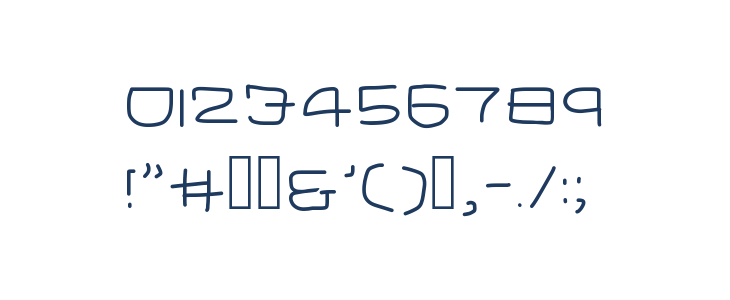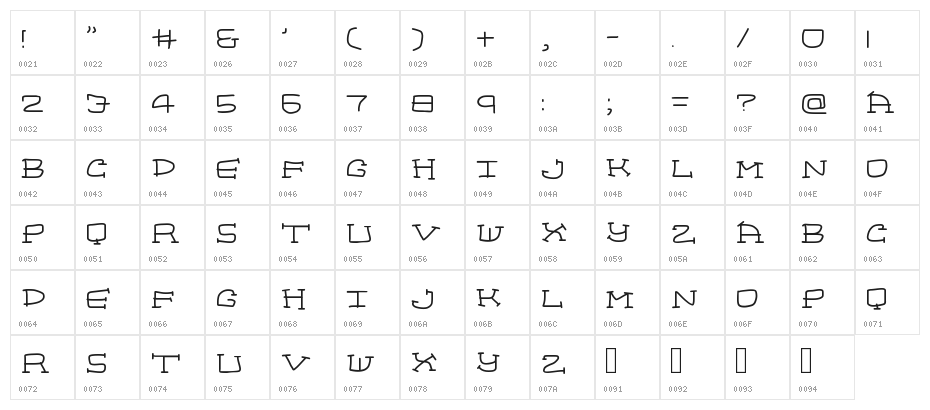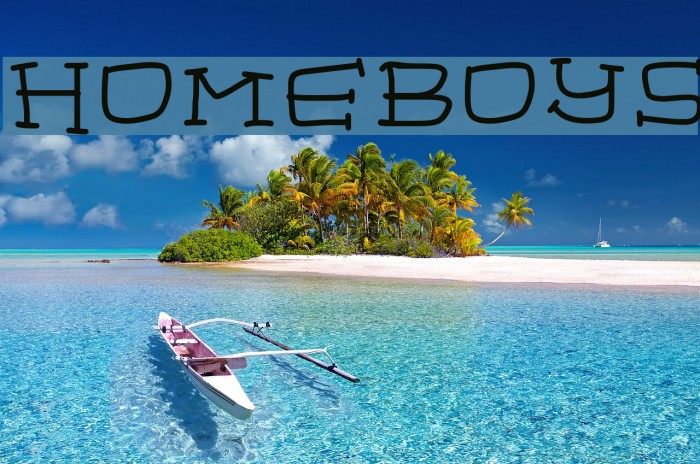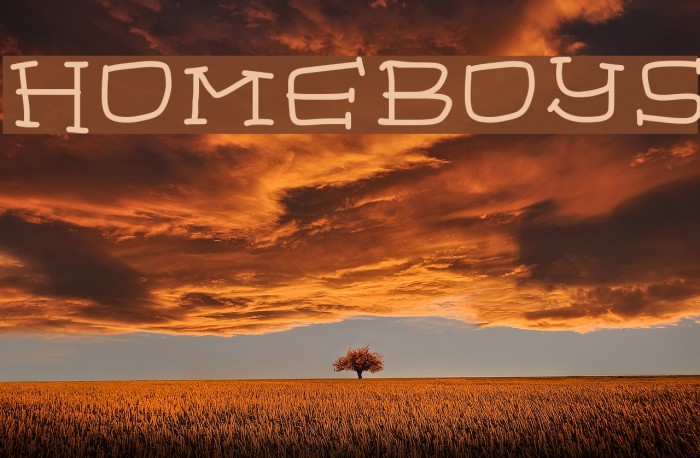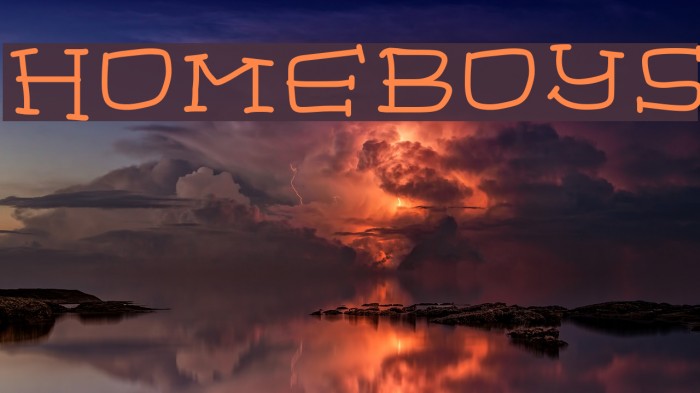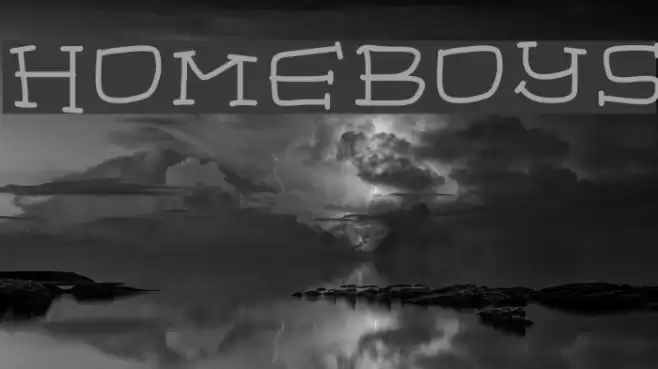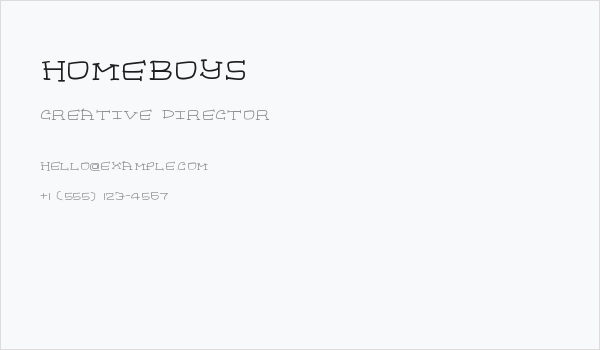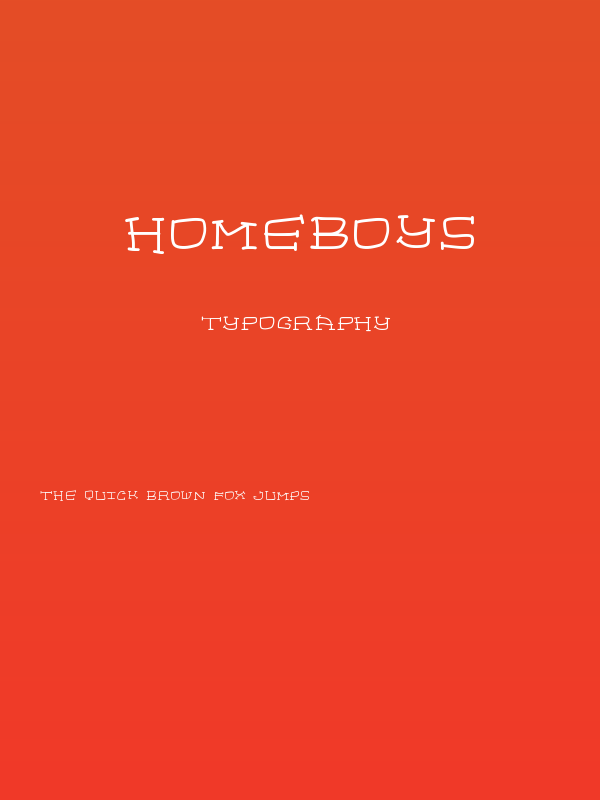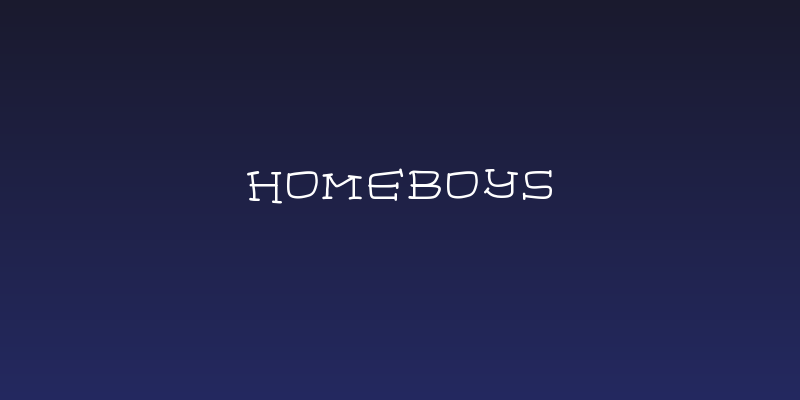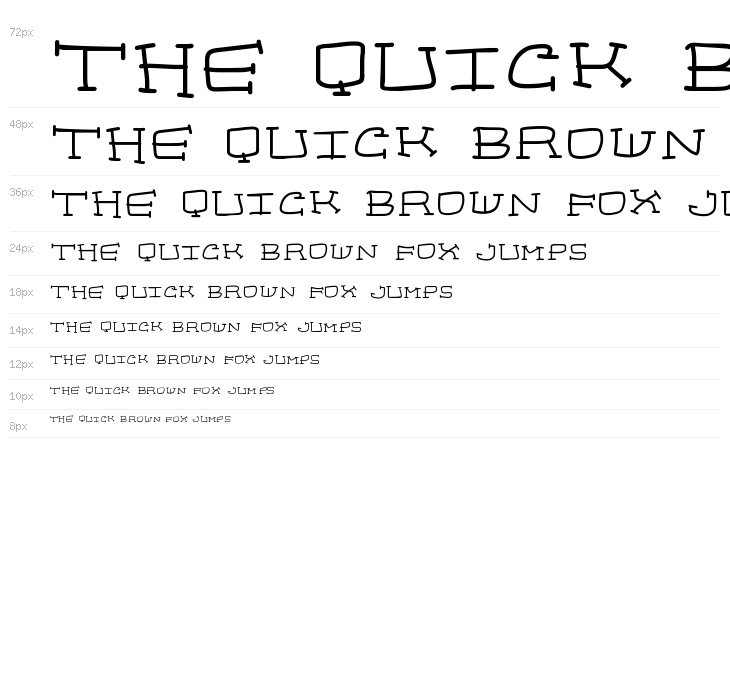
homeboys Font
homeboys Description
This font features a unique, playful design with a hand-drawn aesthetic. The characters have a whimsical, slightly irregular form, giving them a casual and informal appearance. The strokes are consistent in width, with subtle curves and angles that add to the font's charm. The uppercase and lowercase letters maintain a cohesive style, while the numerals and special characters complement the overall look. This font is ideal for projects that require a fun and approachable vibe, such as children's books, casual branding, or creative invitations.
Overall StylePlayful, Casual
Proposed ProjectsChildren's books, casual branding, creative invitations, playful posters.